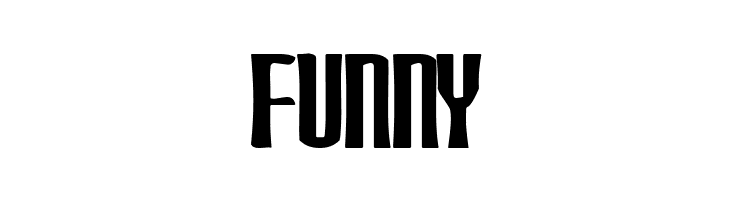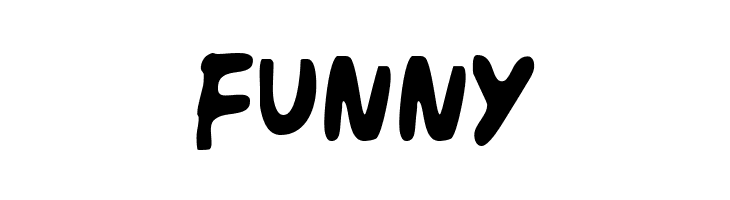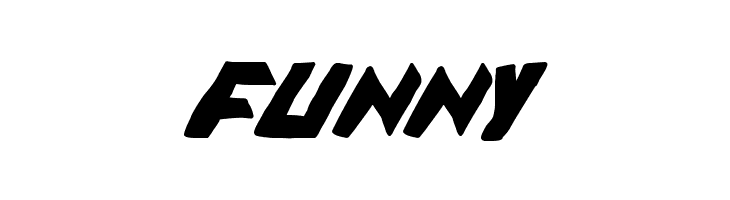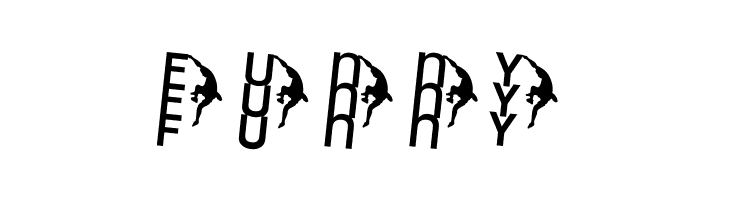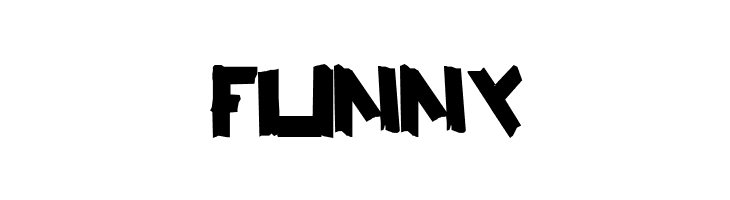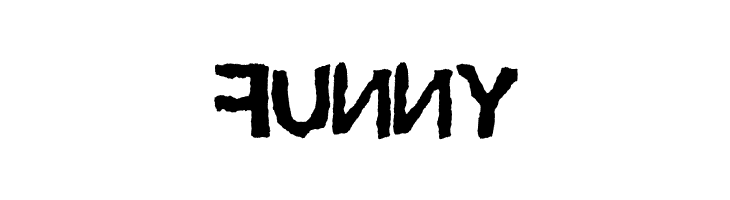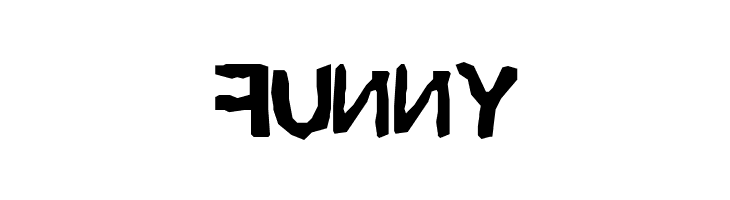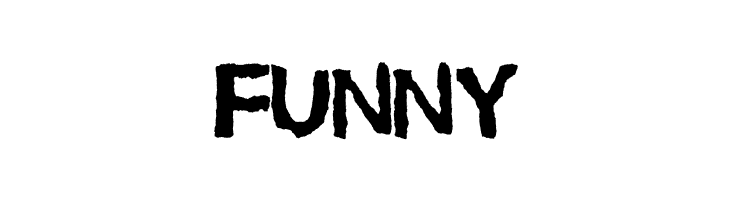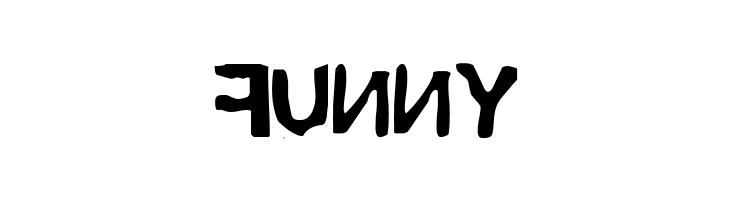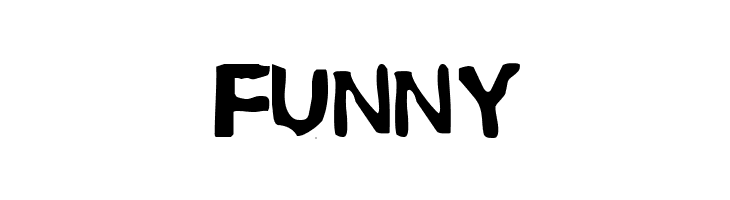
A bold, ultra-condensed font with tall, narrow letterforms and strong visual impact.
A tall, ultra-condensed, extra black italic font with high contrast and sharp serifs.
An ultra-condensed, tall serif font with light strokes and a modern classic appeal.
A tall, ultra-condensed, light italic font with a modern and elegant style.
A bold, wide serif font with expanded letterforms and strong presence.
Bold, italic, and expanded font with high contrast and dynamic style.
A bold, wide, expanded font with extra black weight and high contrast.
A bold, wide, and expanded italic font with high contrast and strong visual impact.
A bold, wide, and light serif font with a modern aesthetic.
An elegant, expanded italic serif font with a light weight and modern style.
A bold, ultra-expanded serif font with wide letterforms and high contrast.
A bold, ultra-expanded italic font with a modern and dynamic style.
A bold, ultra-expanded font with thick strokes and a commanding presence.
A bold, ultra-expanded italic font with a powerful and dynamic presence.
An ultra-expanded, light serif font with a modern and bold aesthetic.
An ultra-expanded, light, and italicized font with a grand and dynamic style.
A bold, modern font with vintage flair and elongated characters.
Bold, slanted, geometric sans-serif with a futuristic look.
A bold, dynamic font with a climber motif integrated into each character.
A playful, handwritten font with bold, dynamic strokes and an informal style.
A bold, playful font with rounded, hand-drawn letterforms.
A modern, geometric font with rounded edges and consistent line thickness.
A modern, geometric font with rounded edges and a bold, minimalist style.
A bold, rounded font with a modern and playful aesthetic.
A modern, ultra-lightweight font with a minimalist and geometric design.
A modern, geometric font with thin lines and a minimalist design.
A bold, distressed font with an edgy, torn tape appearance.
A bold, geometric font with sharp angles and a blocky, stencil-like appearance.
A rugged, distressed font with bold, irregular edges for a raw visual impact.
A bold, distressed font with a rugged, hand-crafted appearance.
A bold, distressed font with irregular, hand-crafted edges.
A bold, playful font with irregular, hand-drawn shapes and a unique, artistic flair.
A bold, playful font with irregular, organic shapes and a hand-cut appearance.
Cartoonish, illustrated characters form each letter and symbol.